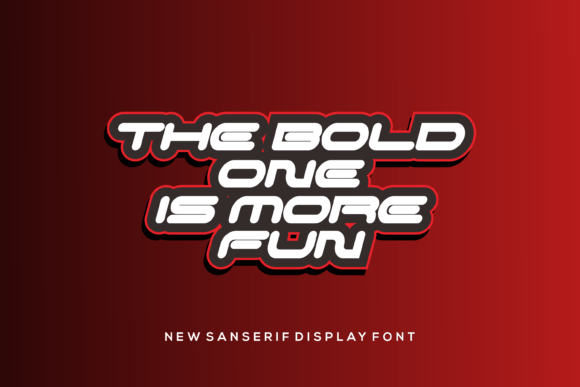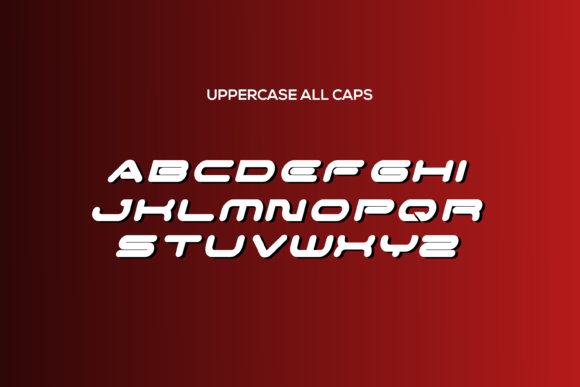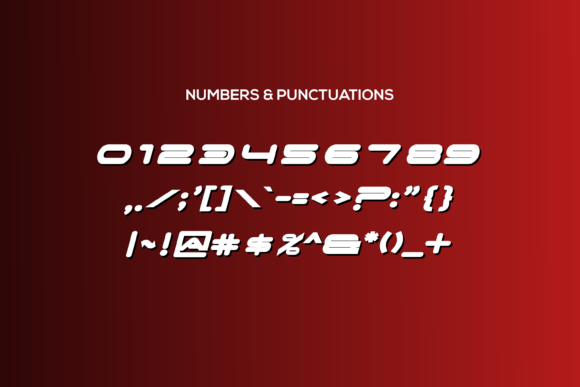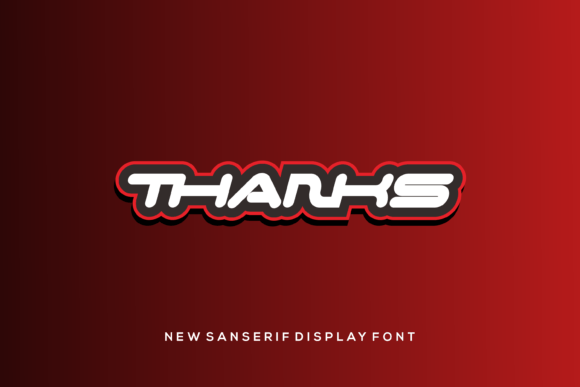
Introduction to Bollict Font
Have you ever stared at a blank canvas, trying to bring your creative vision to life, only to feel stuck and uninspired? That’s where the perfect design resource can make all the difference. As a designer, you know that the right font can elevate your project from ordinary to extraordinary.
That’s why we’re excited to introduce you to the Bollict Font, a cool and modern display font that’s sure to take your creative project to the next level. With its sleek, high-quality design, Bollict Font is the perfect addition to any design project, whether you’re working on a logo, a social media graphic, or a website. And the best part? It’s available for free download, making it an invaluable resource for designers of all levels.
Whether you’re working on a high-profile campaign or a personal passion project, Bollict Font is a versatile design tool that’s sure to deliver high-quality results. So why settle for a transparent background or a generic font when you can add a touch of sophistication and style to your design with Bollict Font?
Key Features of Bollict Font
- High-quality design resource ideal for creative projects, with a transparent background for seamless integration.
- Includes a range of styles and weights, perfect for adding depth and visual interest to your design.
- Unique characteristics: Bollict Font features a unique blend of modern and vintage elements, making it perfect for designers looking to add a touch of personality to their creative project.
Honest Review: Bollict Font
I recently stumbled upon the Bollict Font, and I must say it’s been a great addition to my design resource collection. The font is perfect for any creative project that requires a modern and clean aesthetic.
One of the things that works well about the Bollict Font is its high quality and crispness, making it perfect for use on a transparent background. The font is also free to download, which is always a bonus.
The font’s design is versatile and can be used for a wide range of applications, from logos to headings. I particularly like the font’s ability to be customized to fit any design style.
- High quality and crispness
- Perfect for use on a transparent background
- Customizable to fit any design style
Any limitations:
- May not be suitable for very formal or traditional designs
- Limited font weight options
Overall, I’m quite impressed with the Bollict Font and would highly recommend it to anyone looking for a modern and clean font for their creative project.
Common Use Cases for Bollict Font
Bollict Font is ideal for a variety of creative projects, including:
– Infographics
– Brochures and flyers
– Web design